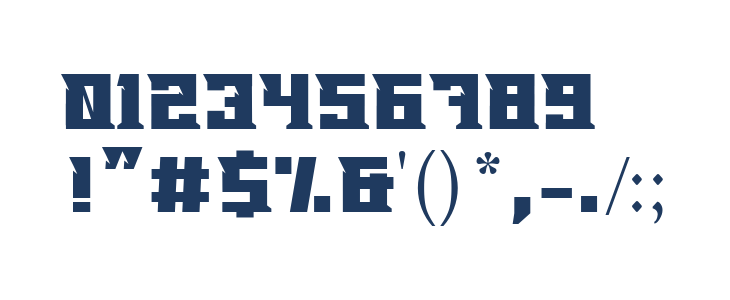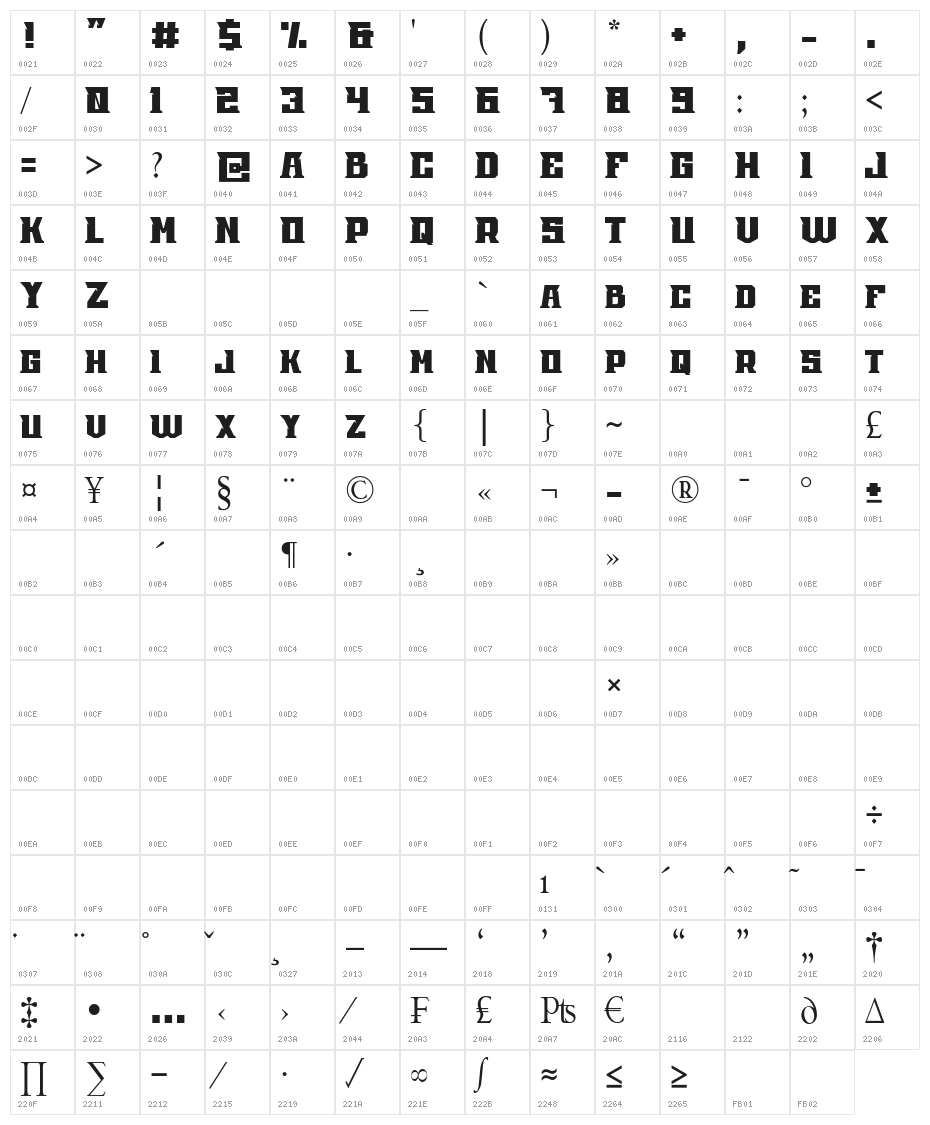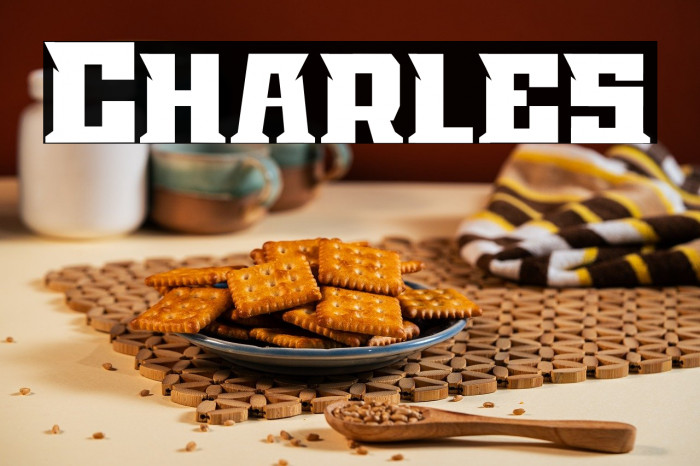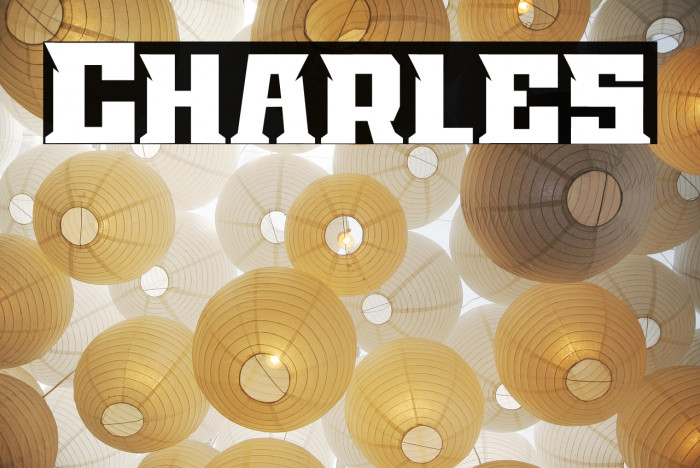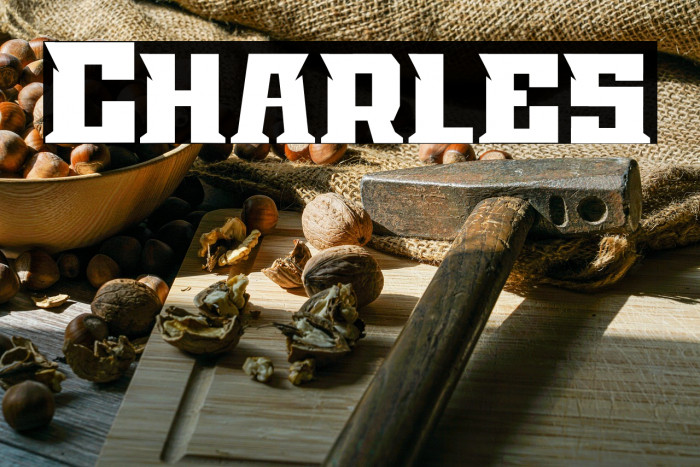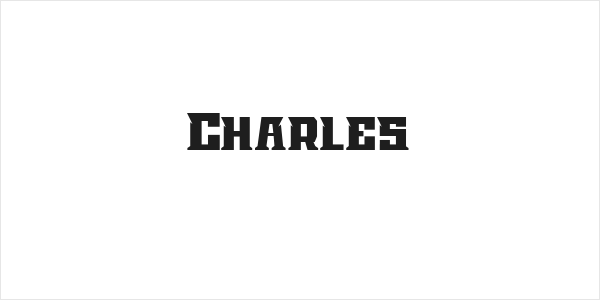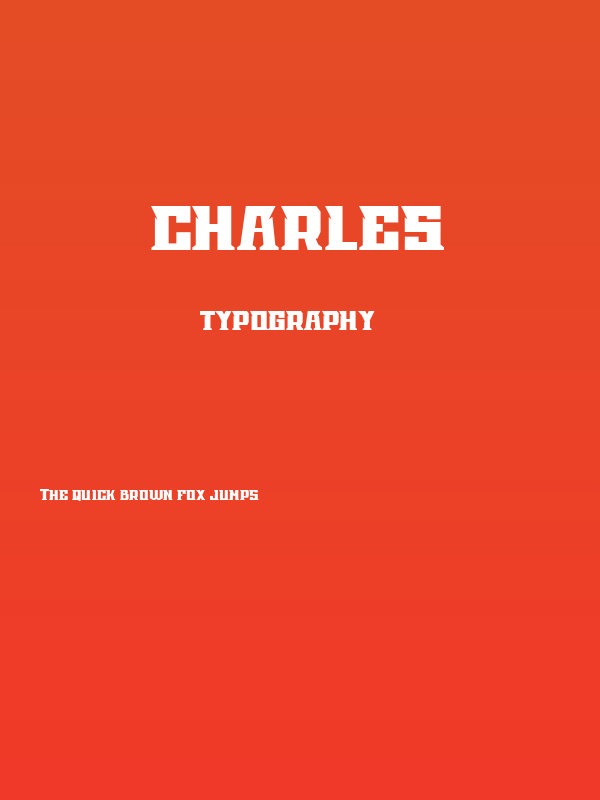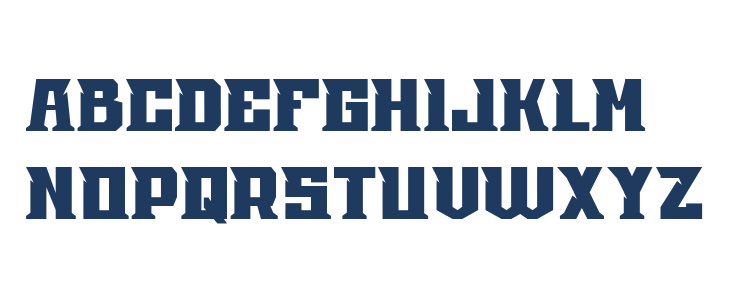
Charles Font
Charles Description
This font features a bold and impactful design with strong geometric shapes and sharp angles. The characters are constructed with a blocky appearance, giving them a robust and commanding presence. The uppercase letters are particularly striking, with a uniform height and width that contribute to a cohesive look. The numerals and special characters maintain this bold aesthetic, ensuring consistency across all glyphs. The font's style is reminiscent of vintage or retro themes, making it suitable for projects that require a strong visual impact.